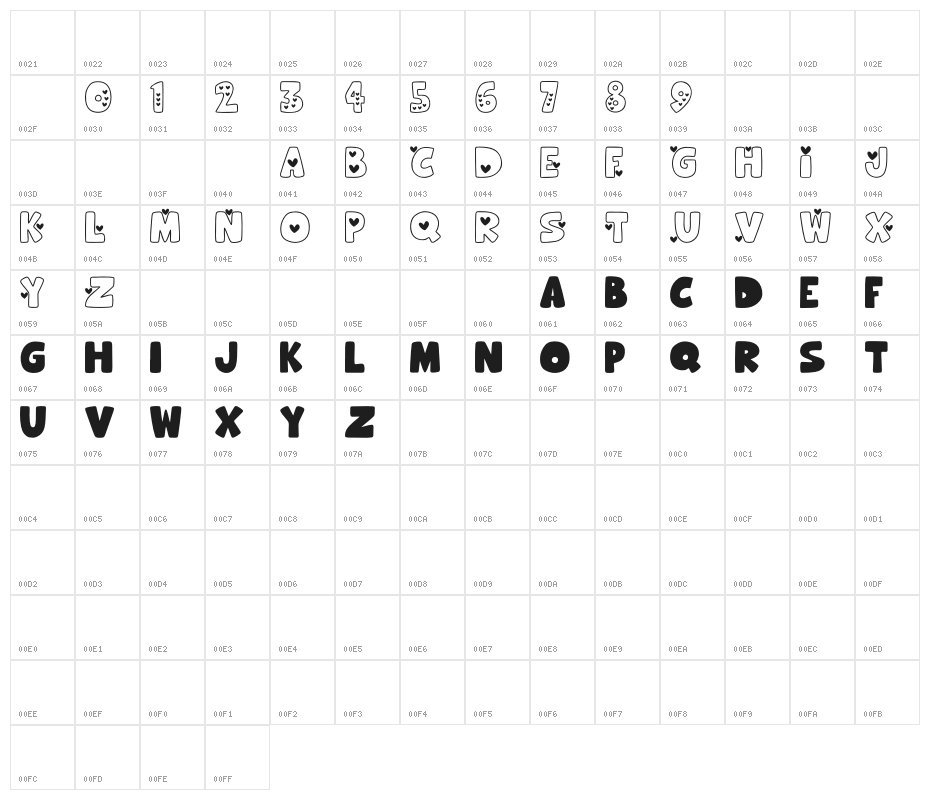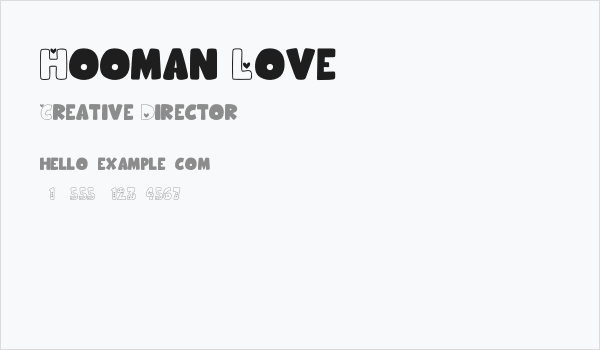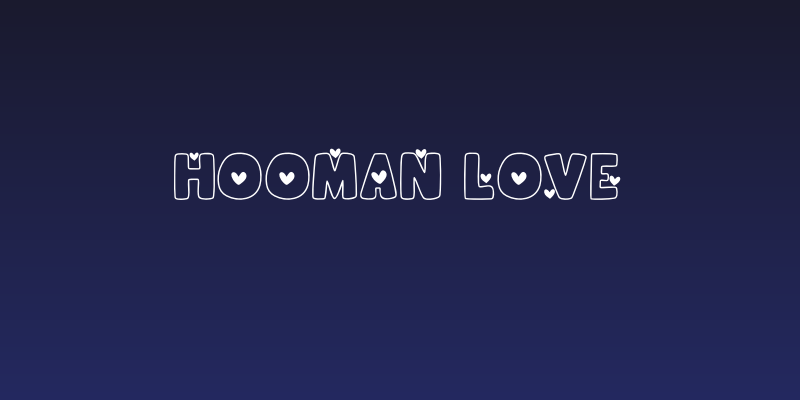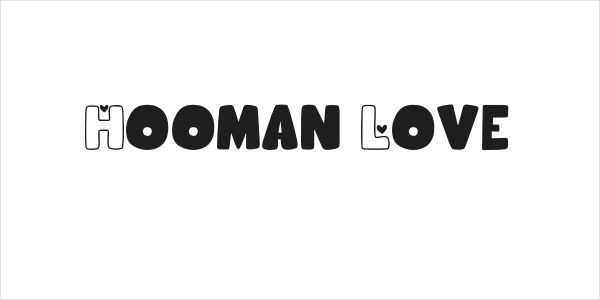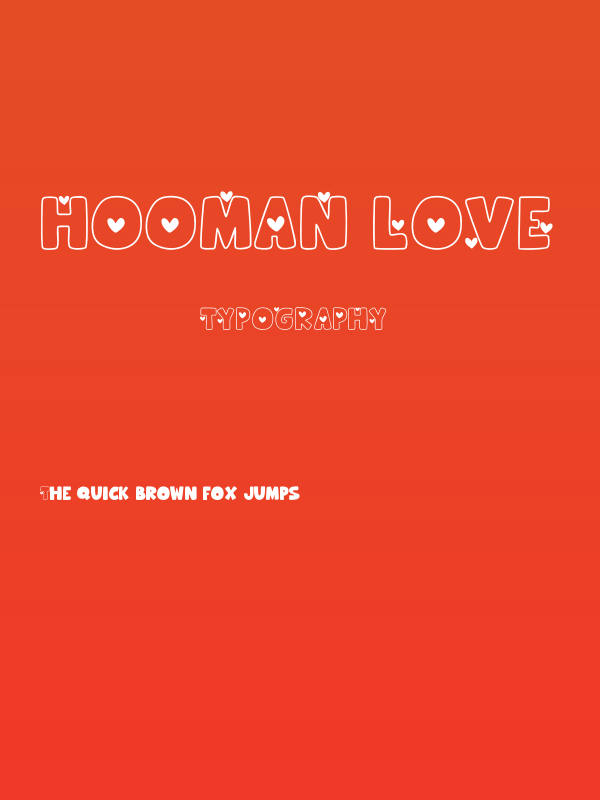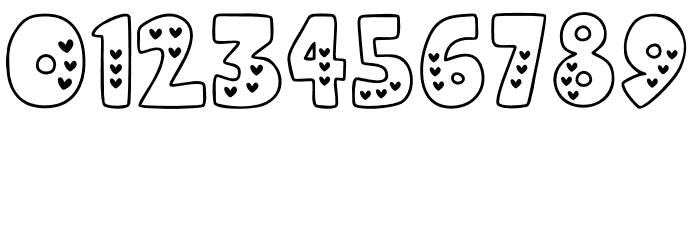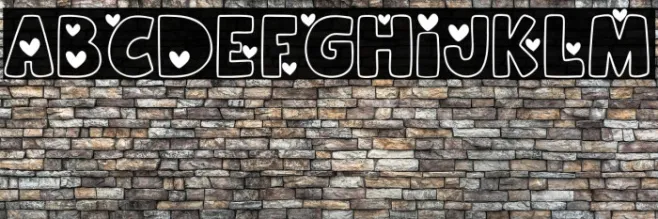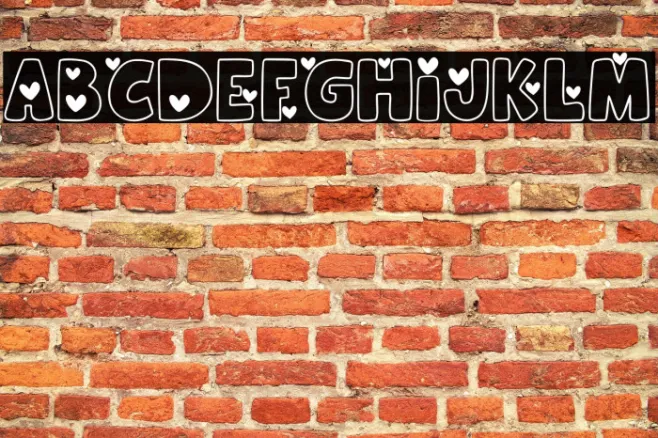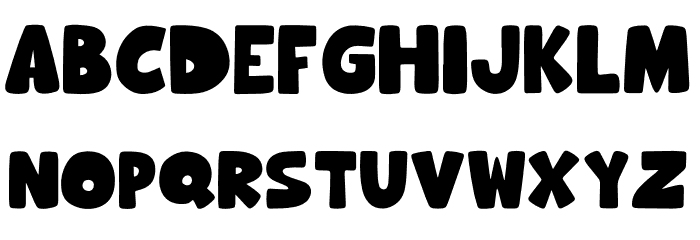
Hooman Love Font
Hooman Love Description
This playful and charming font features bold, rounded letters with whimsical heart shapes integrated into the design. The uppercase letters are outlined, giving them a light and airy feel, while the lowercase letters are solid and bold, providing a strong visual contrast. The numbers also incorporate heart motifs, adding to the font's overall theme of love and affection. The font's unique style makes it ideal for projects that require a touch of fun and creativity, such as children's books, greeting cards, or playful branding. Its decorative elements make it stand out, ensuring that any text set in this font will capture attention.
| Proposed Projects | Ideal for children's books, greeting cards, playful branding, and any project needing a whimsical touch. |